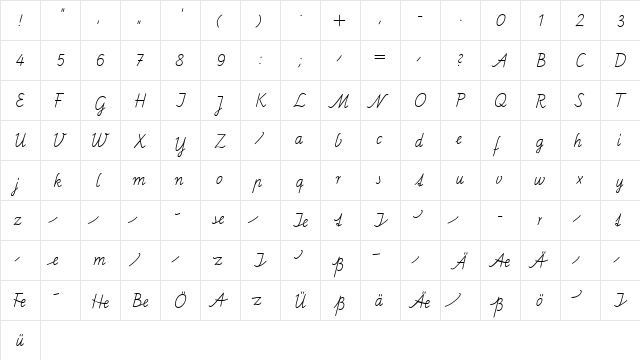
SchulschriftC Regular
Design Context for SchulschriftC Typeface
SchulschriftC offers clean, dependable letterforms without strong stylistic allegiance, making it a practical choice for designers who need flexibility.